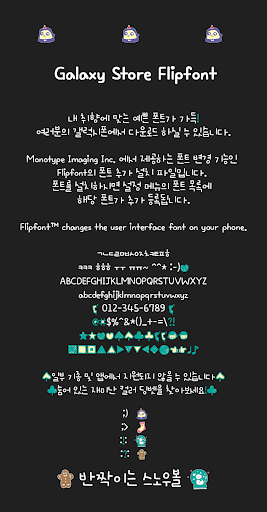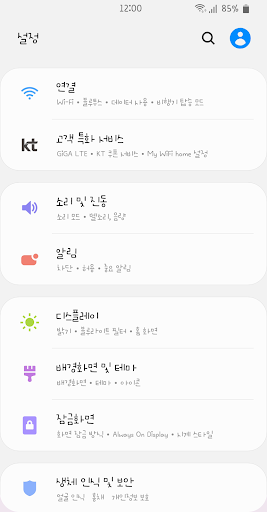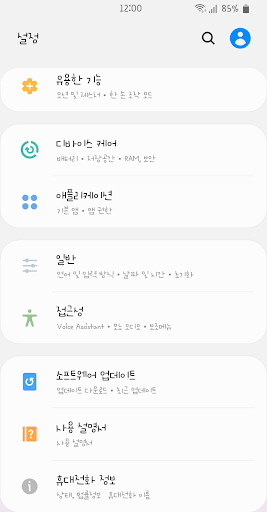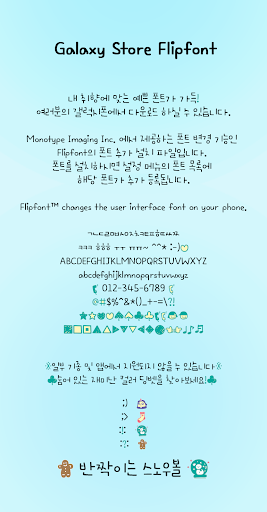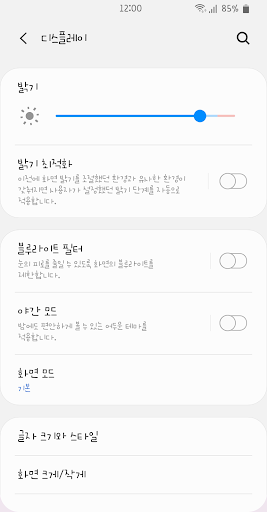
AhSnowball™ Korean Flipfont
It's a font that feels like it's written down by hand, which is characterized by a natural shape.
The writing line is set to the middle and lower to add visually unique fun.
There's a special hidden dingbet hidden, so please look for it. :>